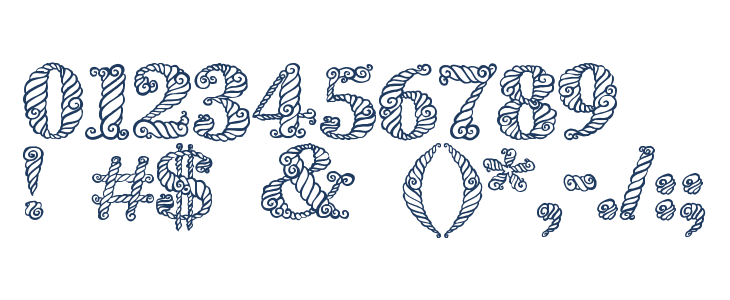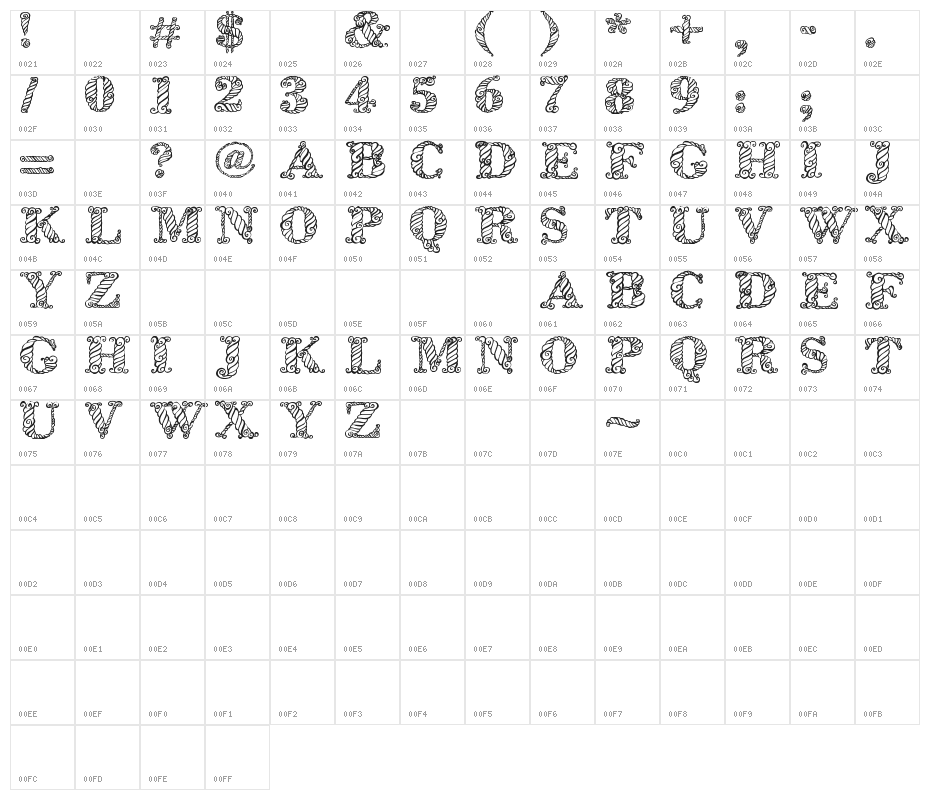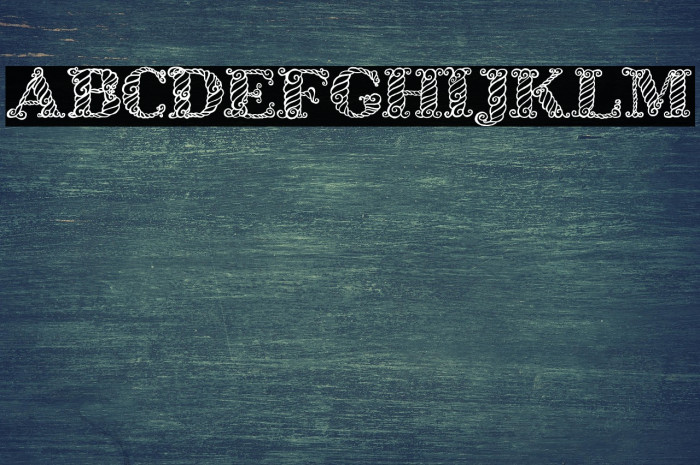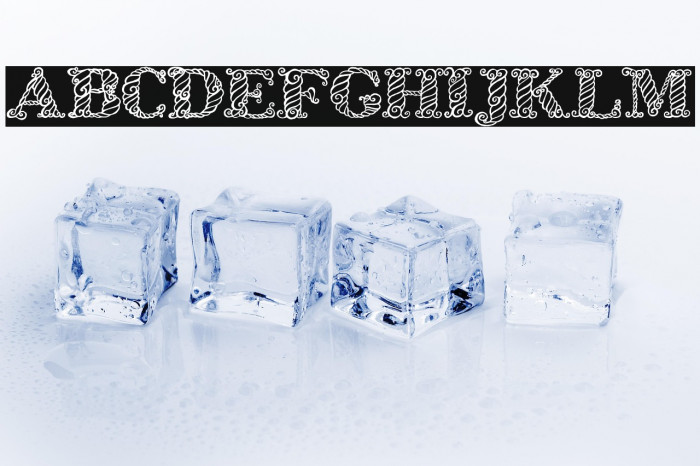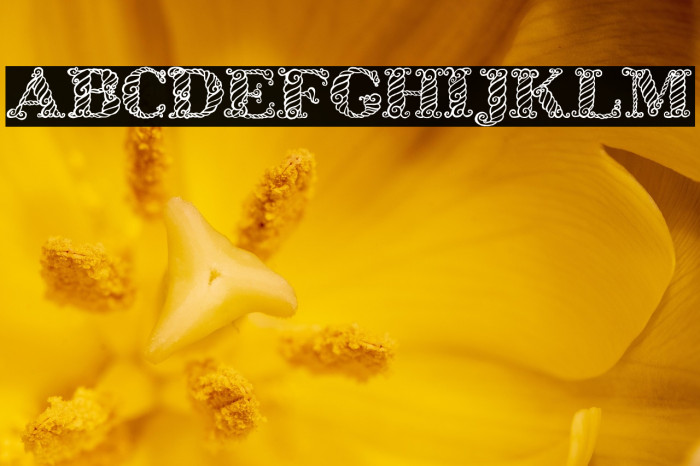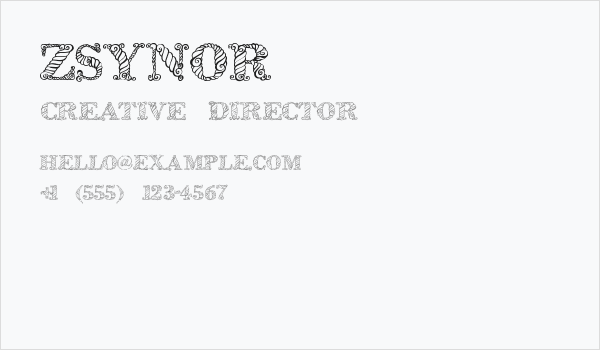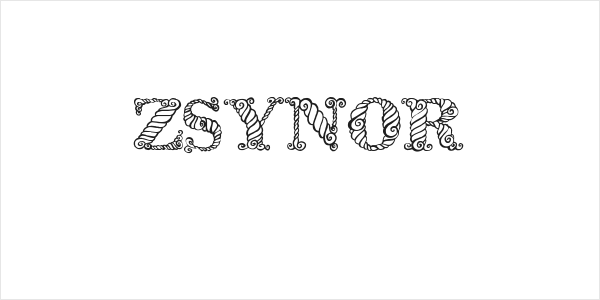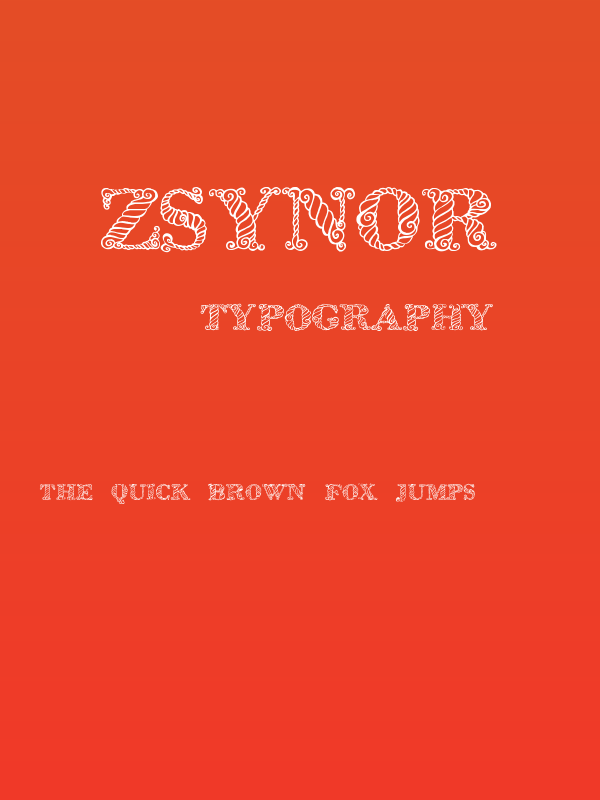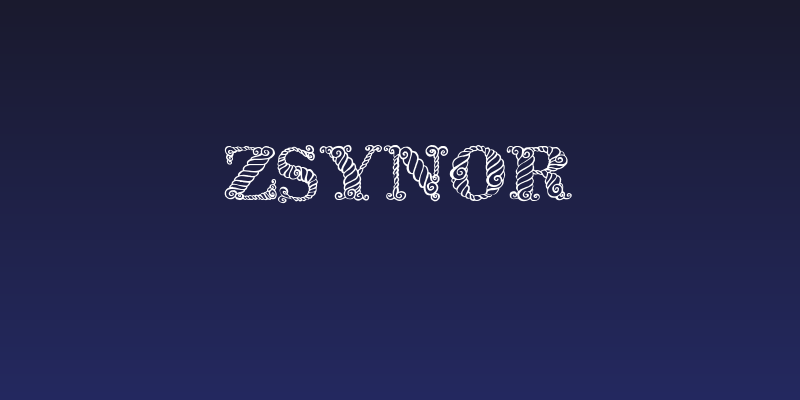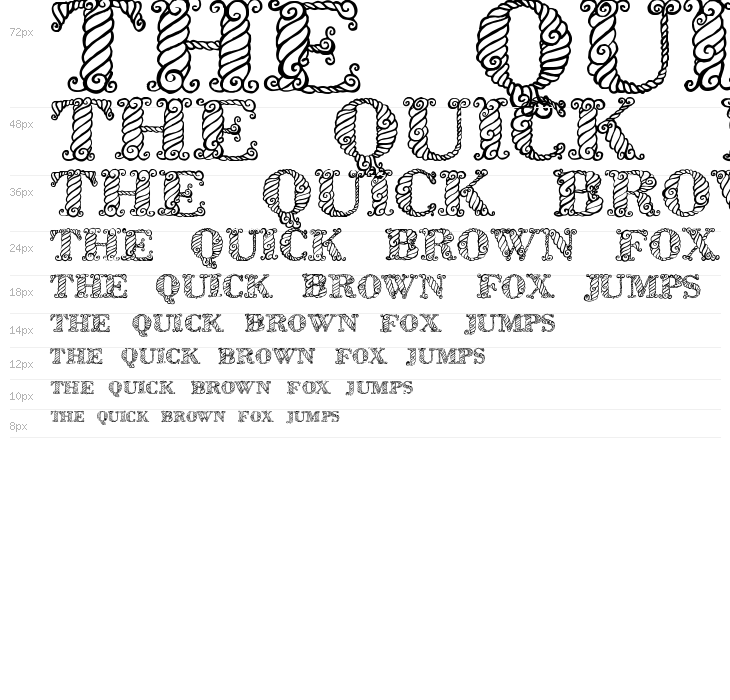
Zsynor Font
Zsynor Description
This font features an intricate and decorative design, characterized by swirling, ornate patterns that embellish each letter and number. The elaborate detailing gives it a whimsical and artistic appearance, making it stand out as a unique and eye-catching typeface. The characters are bold and have a consistent thickness, with each stroke adorned with curls and loops that add a sense of movement and flair. This font is ideal for creative projects where a touch of elegance and playfulness is desired. The overall style is reminiscent of vintage or Victorian-era designs, yet it maintains a modern twist with its bold presentation.
| Proposed Projects | Ideal for invitations, greeting cards, posters, and branding that require a whimsical and elegant touch. |